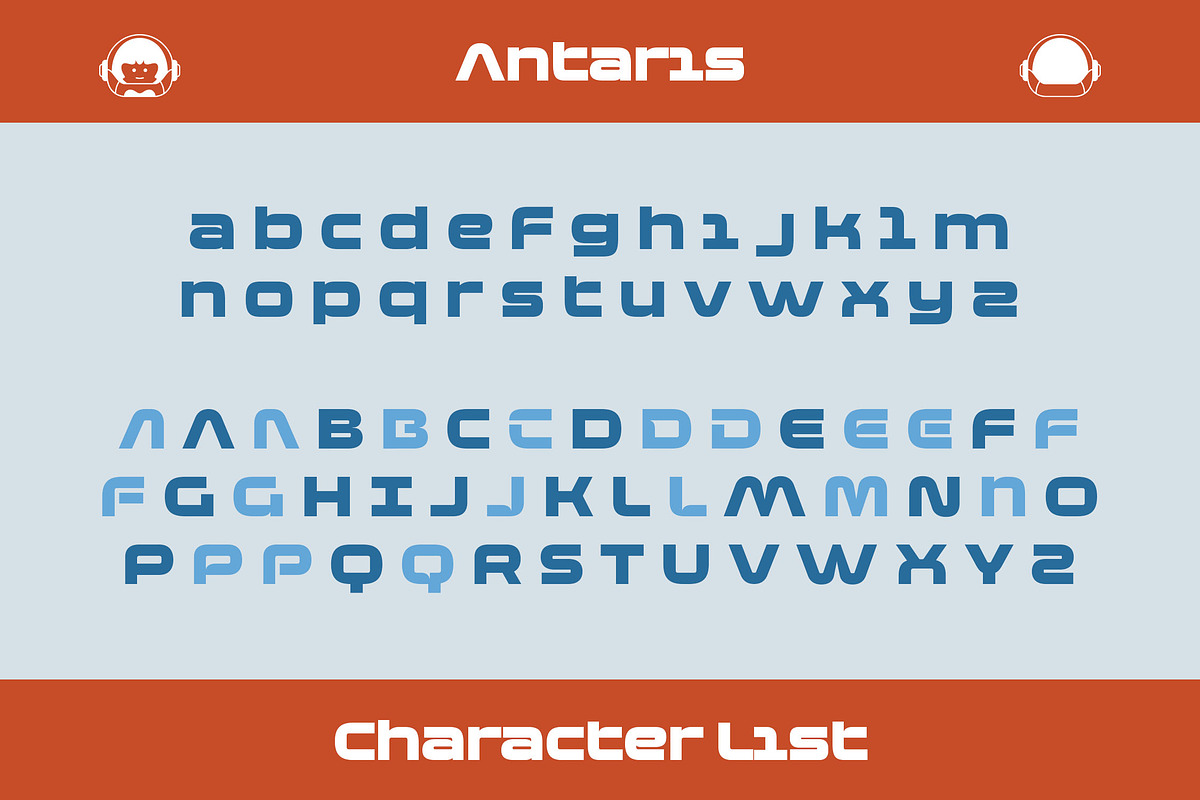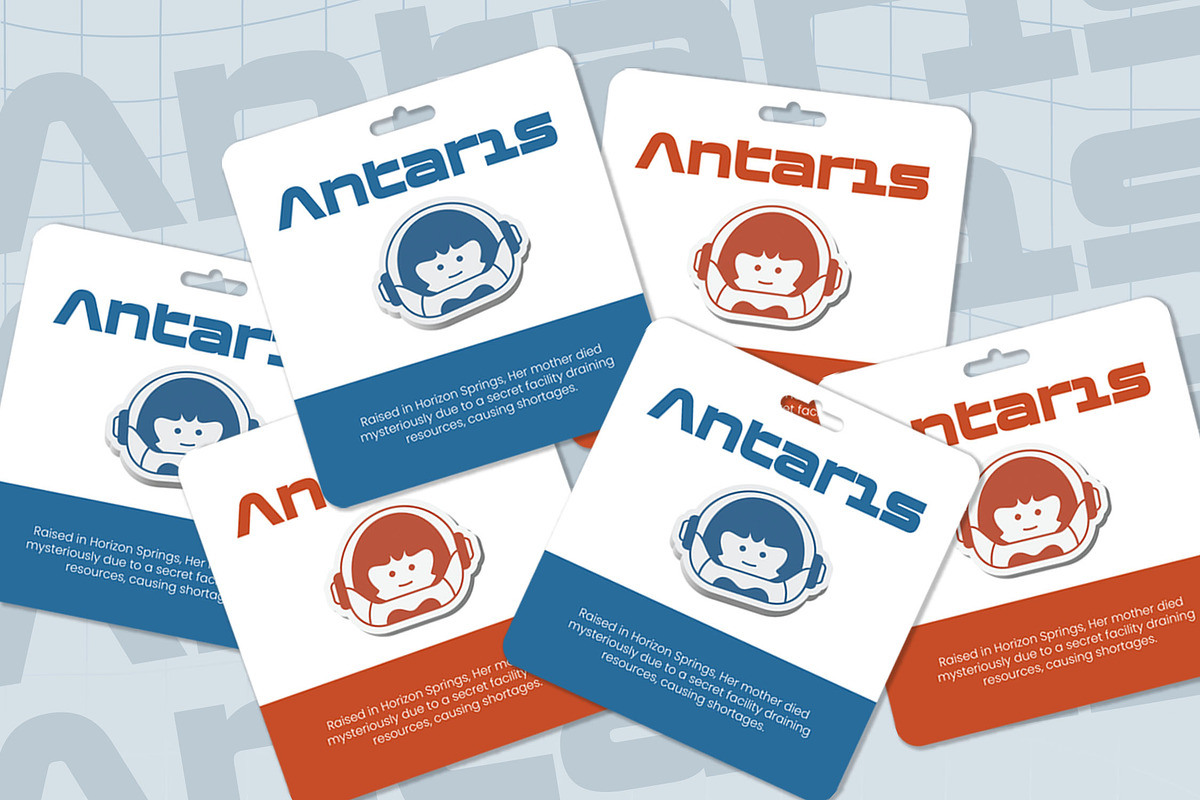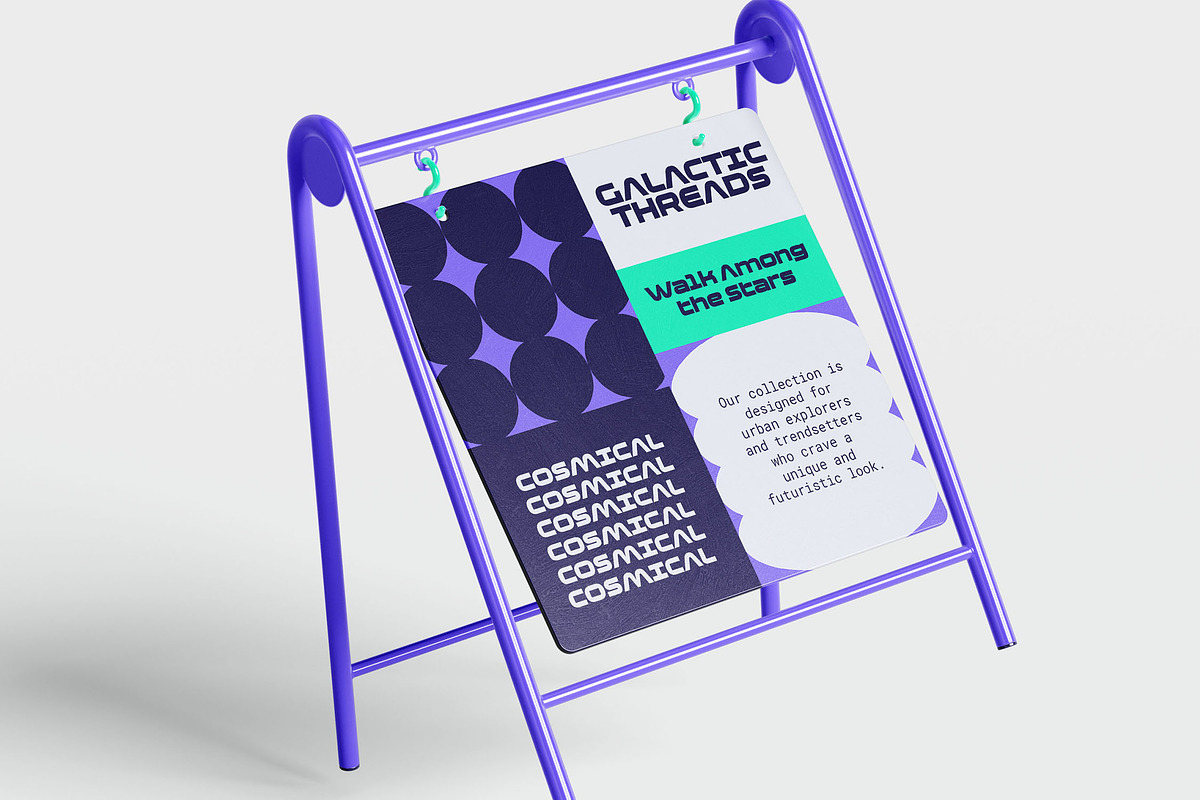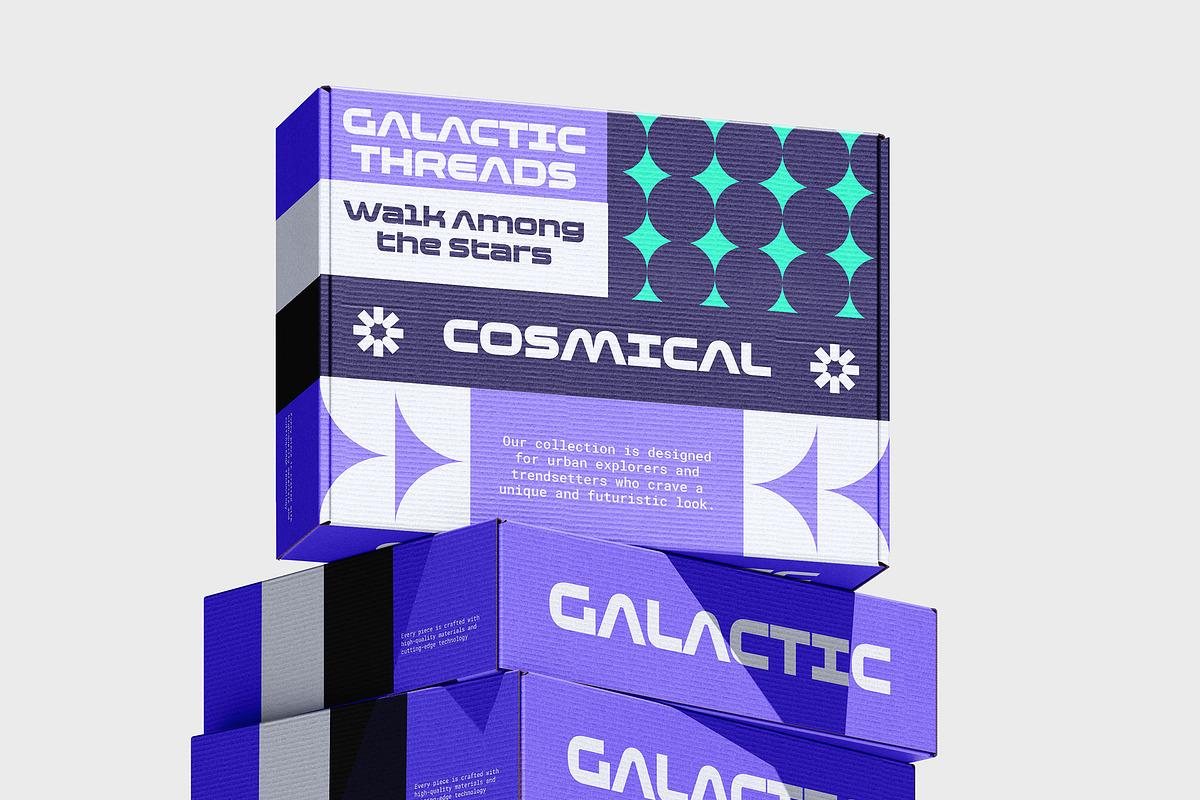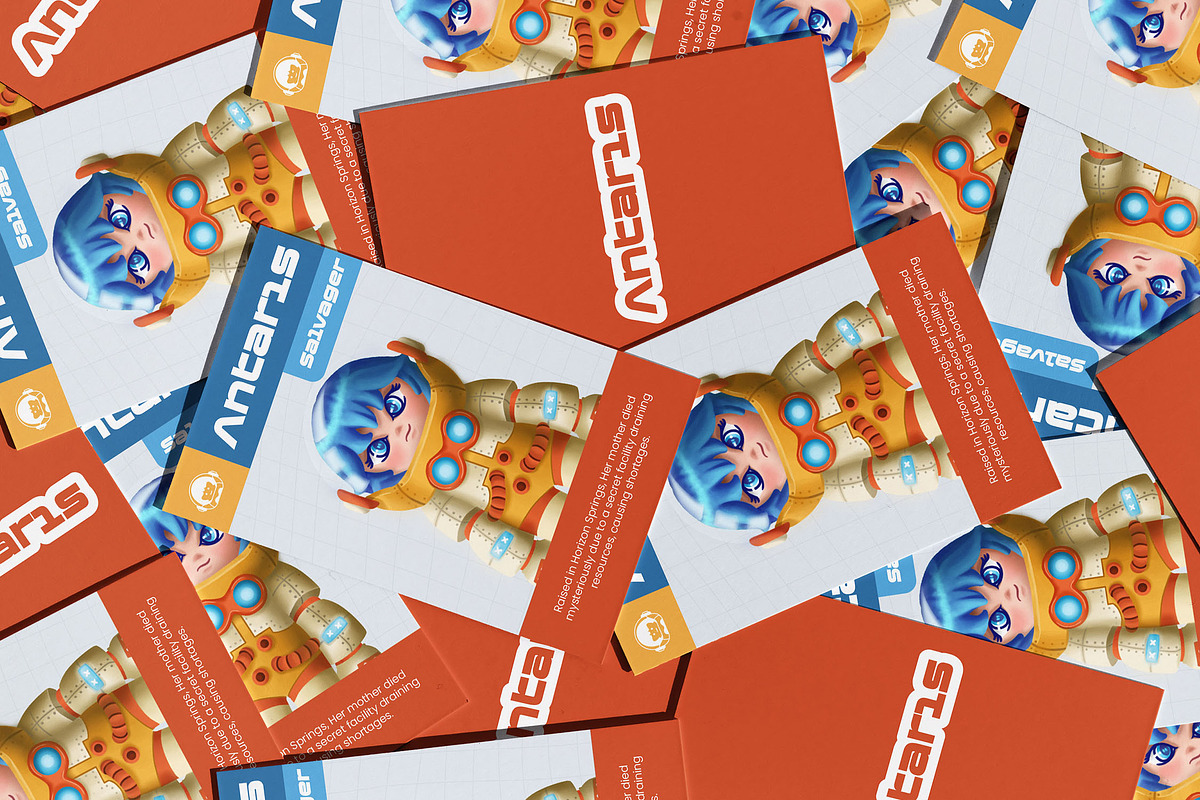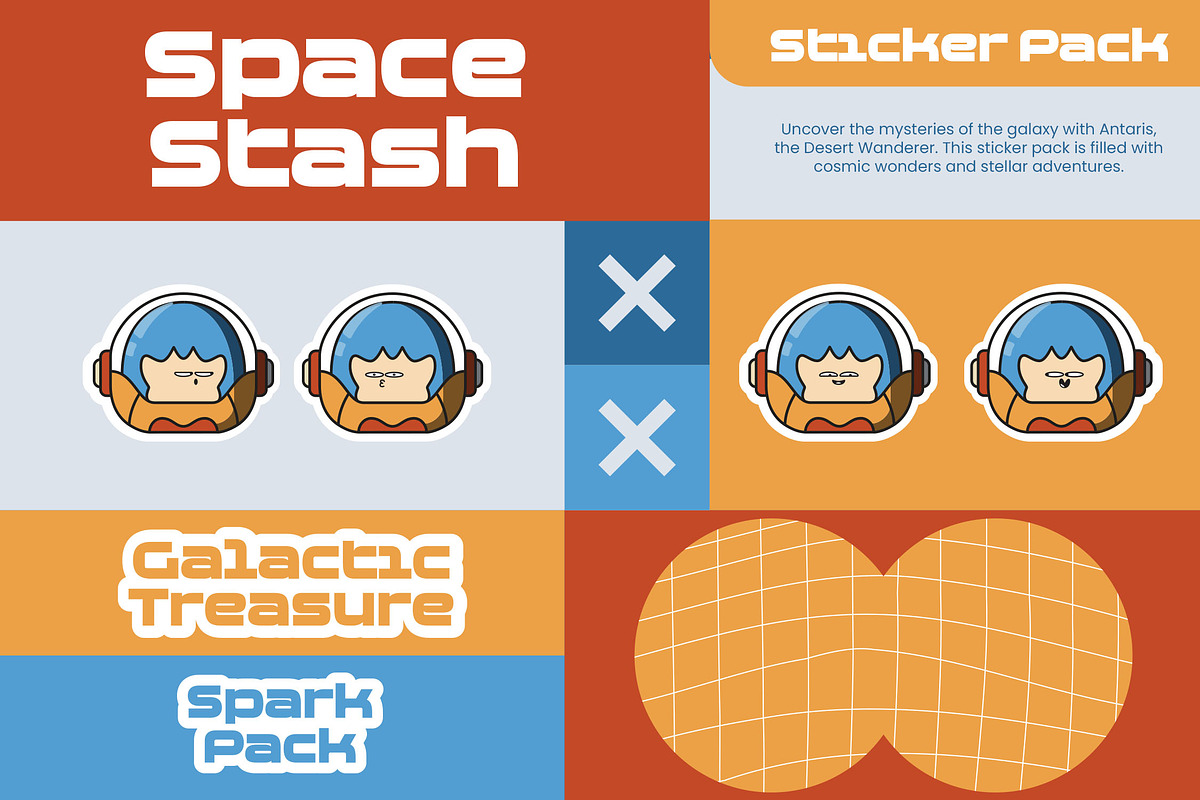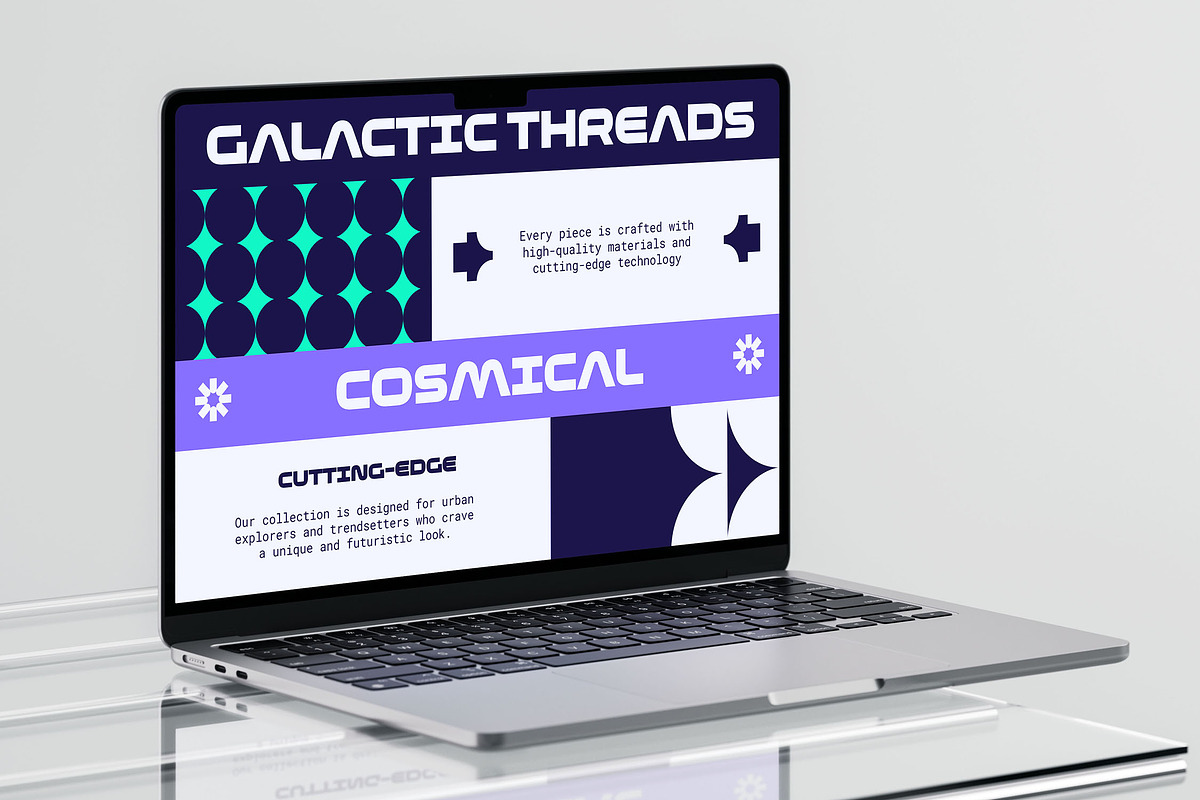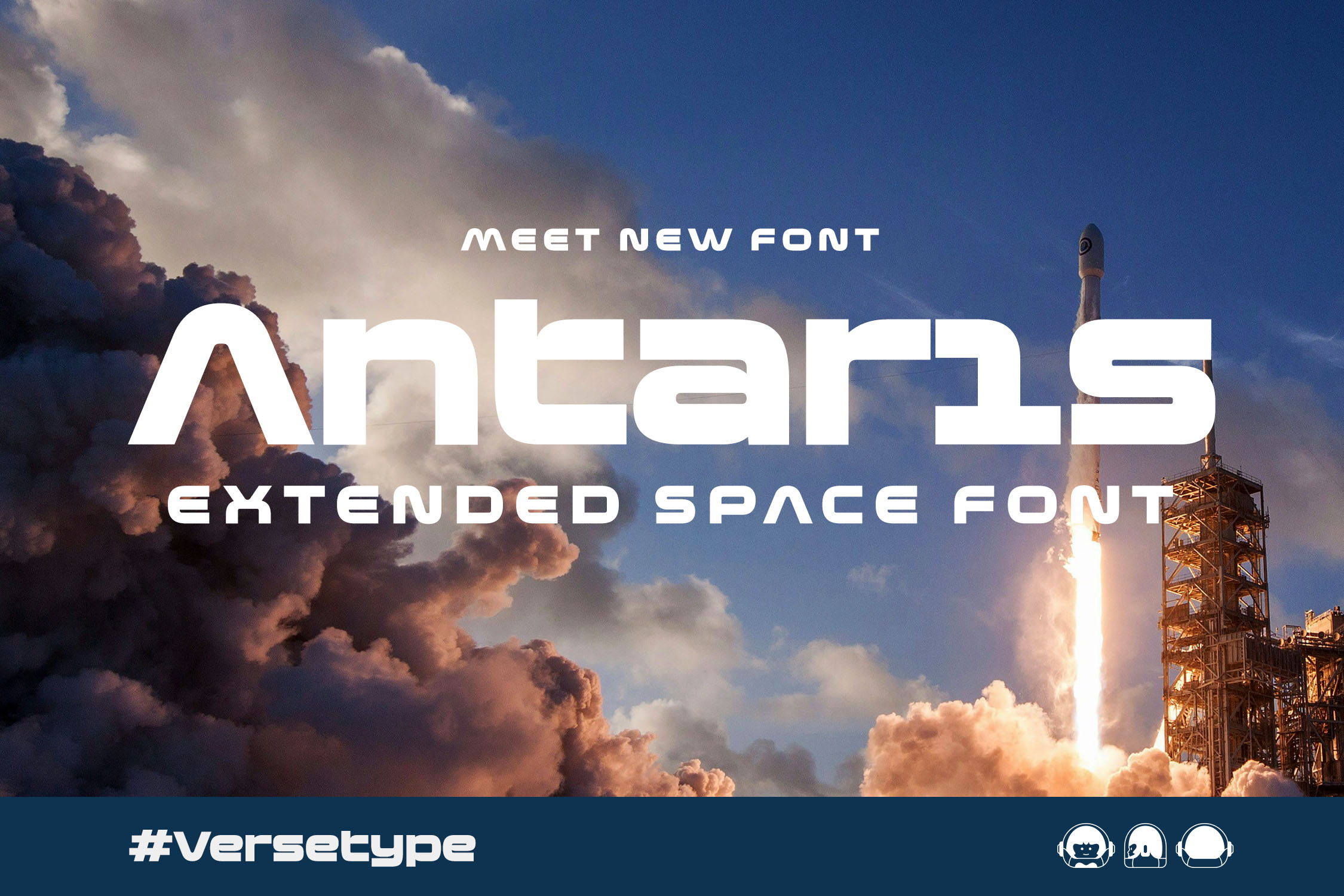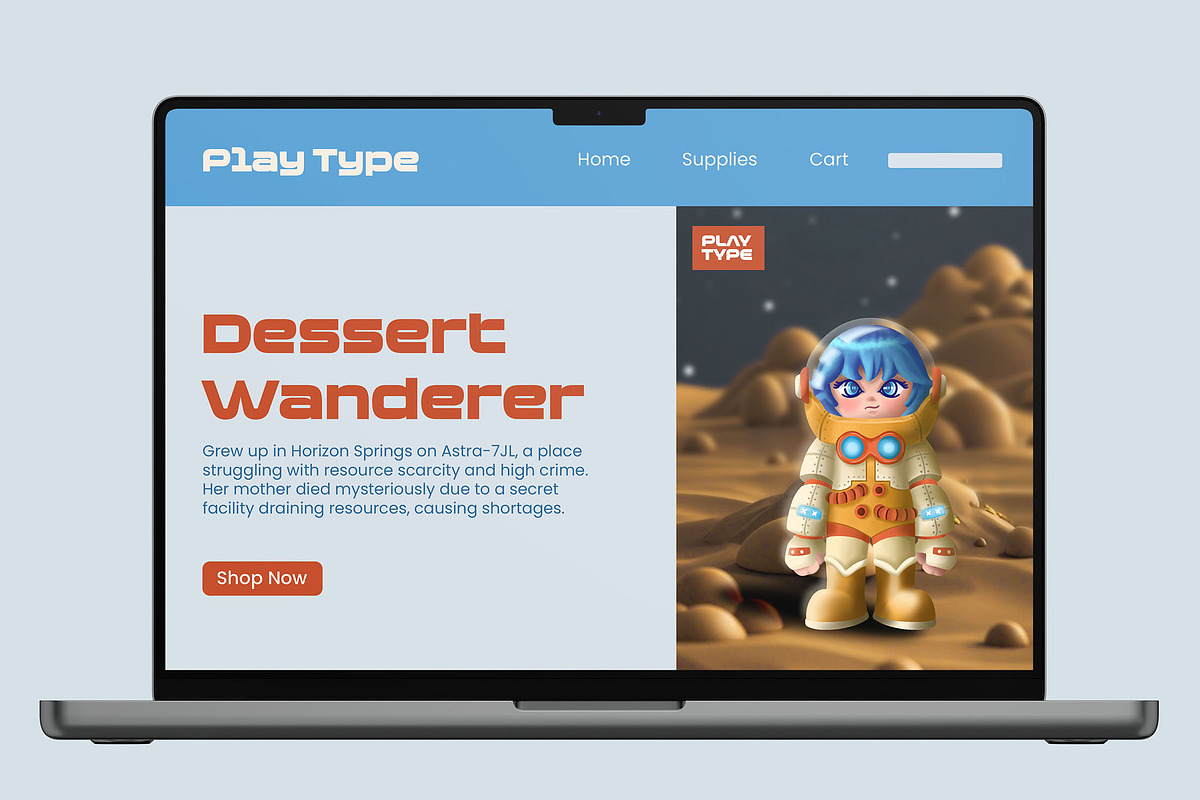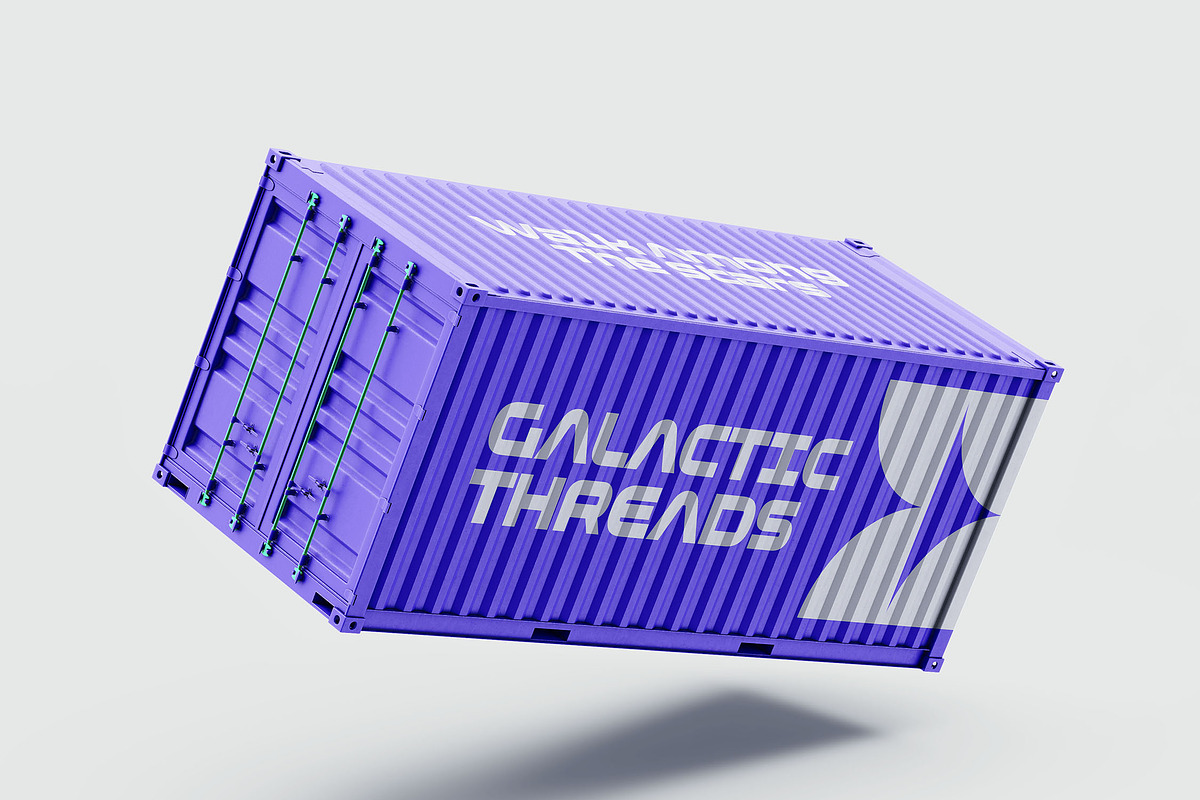
Antaris - Extended Space Font
Introducing Antaris, a bold and extended font with a techno-futuristic flair. Perfect for branding, posters, and display text, it delivers a modern, striking look.
Antaris combines sharp edges with readability, making your message clear and impactful. Elevate your designs with the bold style of Antaris.